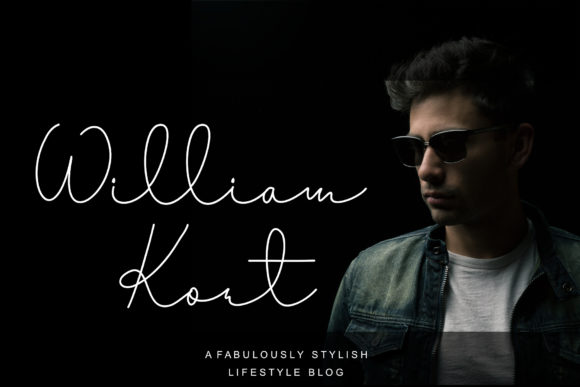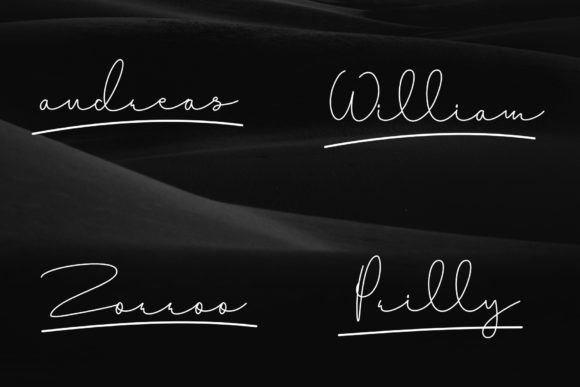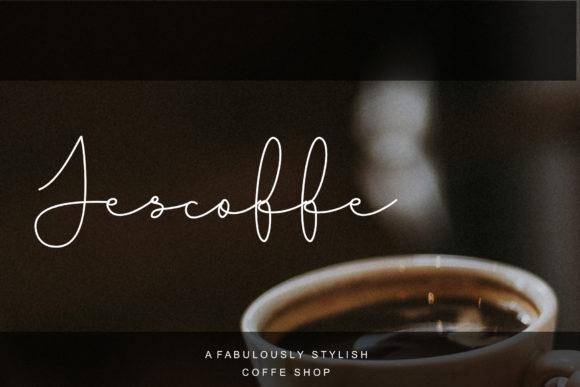
The Perfect Handwritten Touch: Discovering Baritto Font
Remember that moment when you’re working on a design project and you need that special something to make it stand out? The feeling of excitement and anticipation as you search for the perfect font to bring your vision to life? For designers, finding the right font can be the difference between a good design and a great one.
Enter Baritto Font, an equally light and fun handwritten font with a smart feel. Its purpose is to add a personal touch to any design project, making it perfect for creative projects that need a little extra flair. Whether you’re designing a logo, brochure, or social media graphics, Baritto Font is sure to bring a smile to your face and make your design project shine.
As a valuable addition to any designer’s toolkit, Baritto Font offers a unique and stylish way to express your creativity and connect with your audience on a deeper level. With its versatility and charm, it’s no wonder that Baritto Font has become a go-to choice for designers looking to add a handwritten touch to their work.
- Font Style: Script, Casual
- Unique Characteristics: Handwritten, cursive, and casual feel; perfect for creative and artistic projects
Overall, I’m impressed with the Baritto Font, but like any font, it has its strengths and weaknesses. Here’s my honest review.
- The Baritto Font has a unique and quirky aesthetic that’s perfect for creative projects. Its irregular shapes and playful feel make it stand out from more traditional fonts.
- The font is highly legible, even at smaller font sizes, which is essential for any font that’s going to be used for large amounts of text.
- The Baritto Font comes in a variety of weights and styles, making it easy to find the perfect version for your project.
- The font can be a bit too quirky for more formal or professional projects, so it’s not the best choice for those types of applications.
- The font may not be suitable for projects that require a lot of consistency, as its irregular shapes can make it difficult to achieve a uniform look.
The Baritto Font is a fun and creative choice for projects that need a bit of personality. While it may not be the best choice for every project, it’s a great option for those who want to add some visual interest to their designs. With its unique aesthetic and high legibility, the Baritto Font is definitely worth considering for your next creative project.
The Baritto Font is ideal for creating visually appealing and unique designs. Use it for:
- Infographics and presentations
- Editorials and creative writing